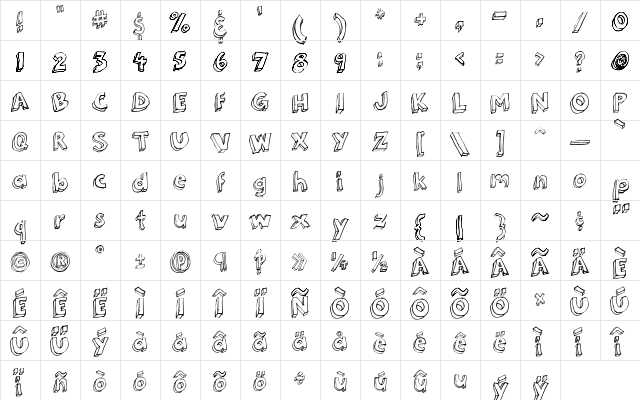
3Dumb Regular Free Font
3Dumb Regular
Foundry: Michael Tension
Design Context for 3Dumb
3Dumb is a composed and adaptable typeface that performs quietly and consistently across a wide range of design contexts.
Who designed the 3Dumb Regular font?